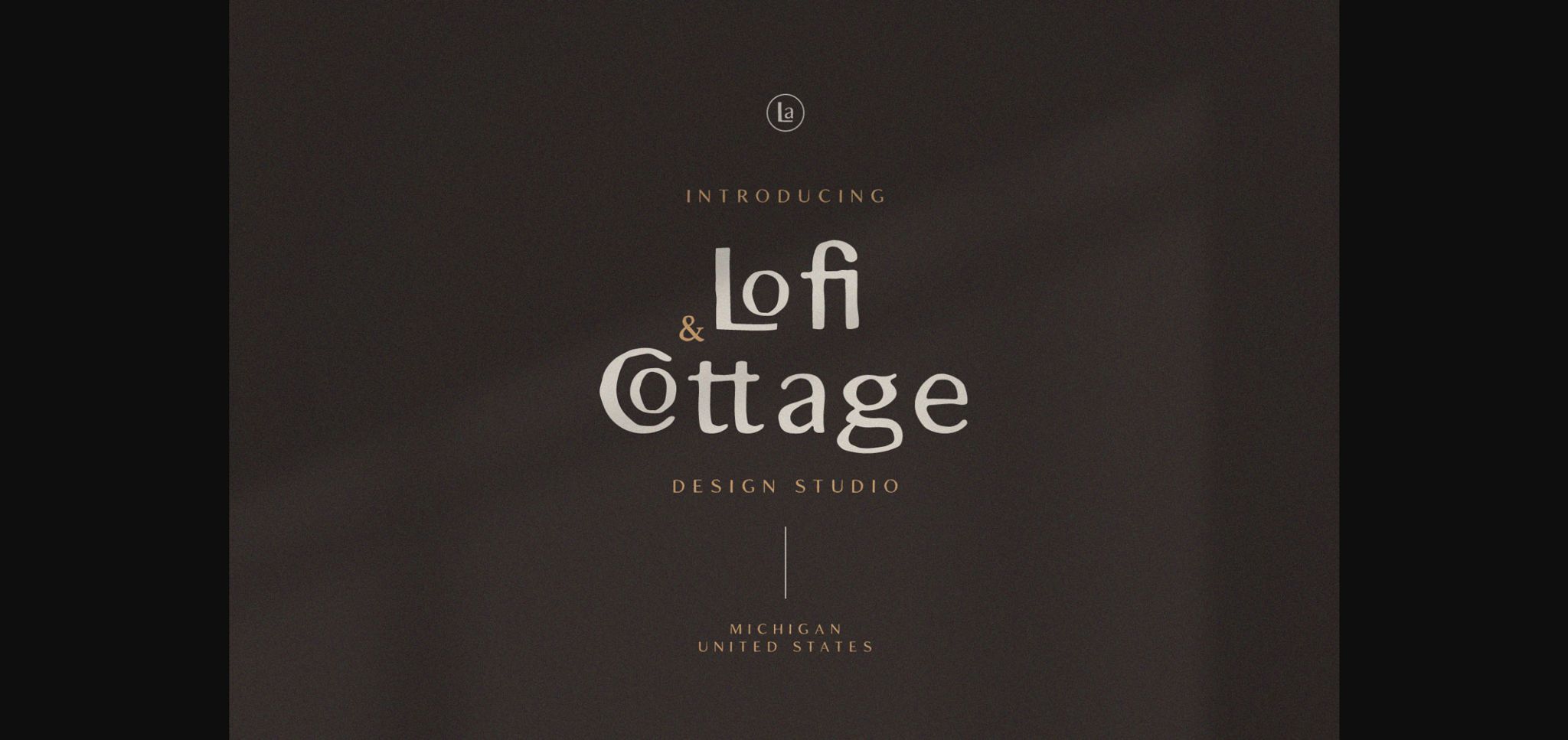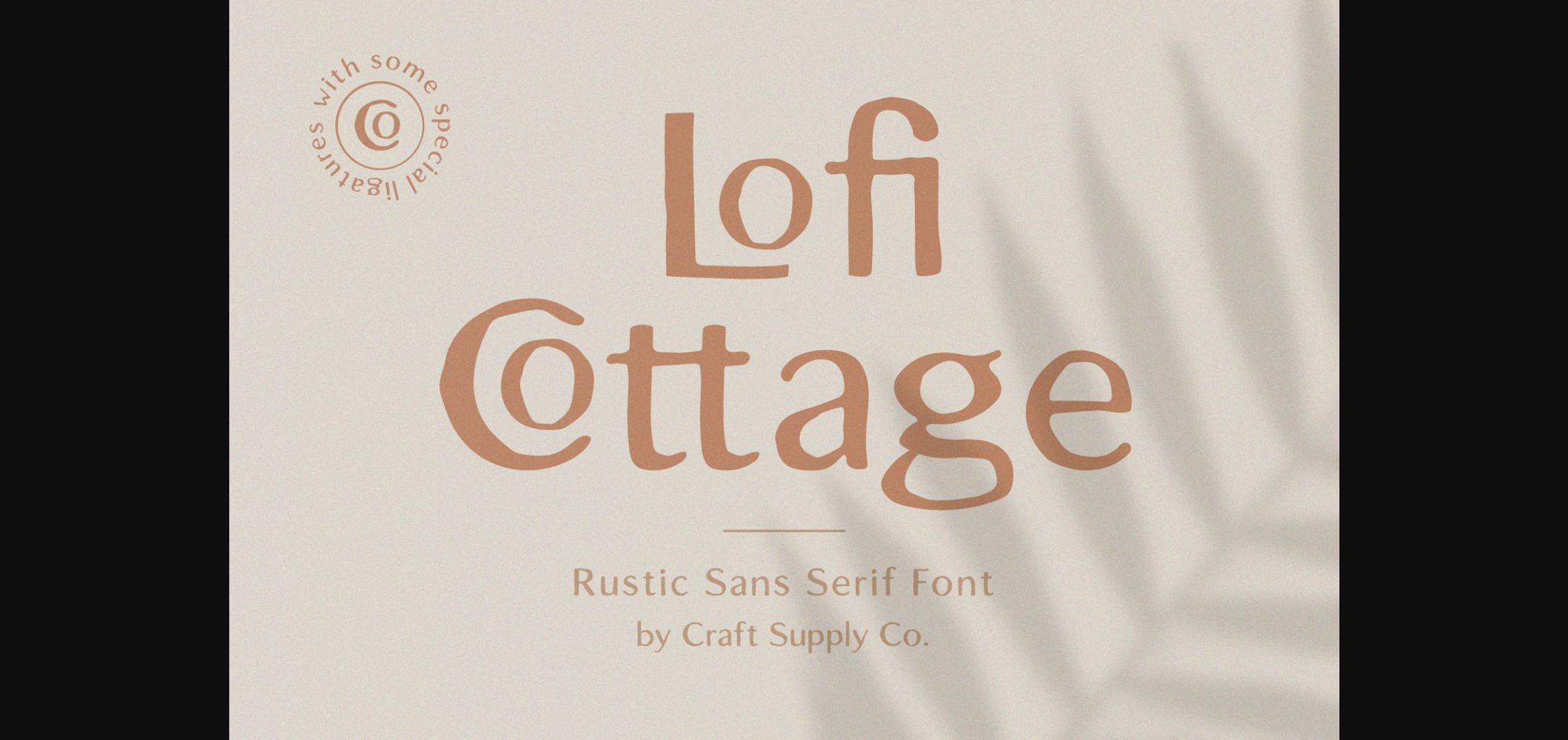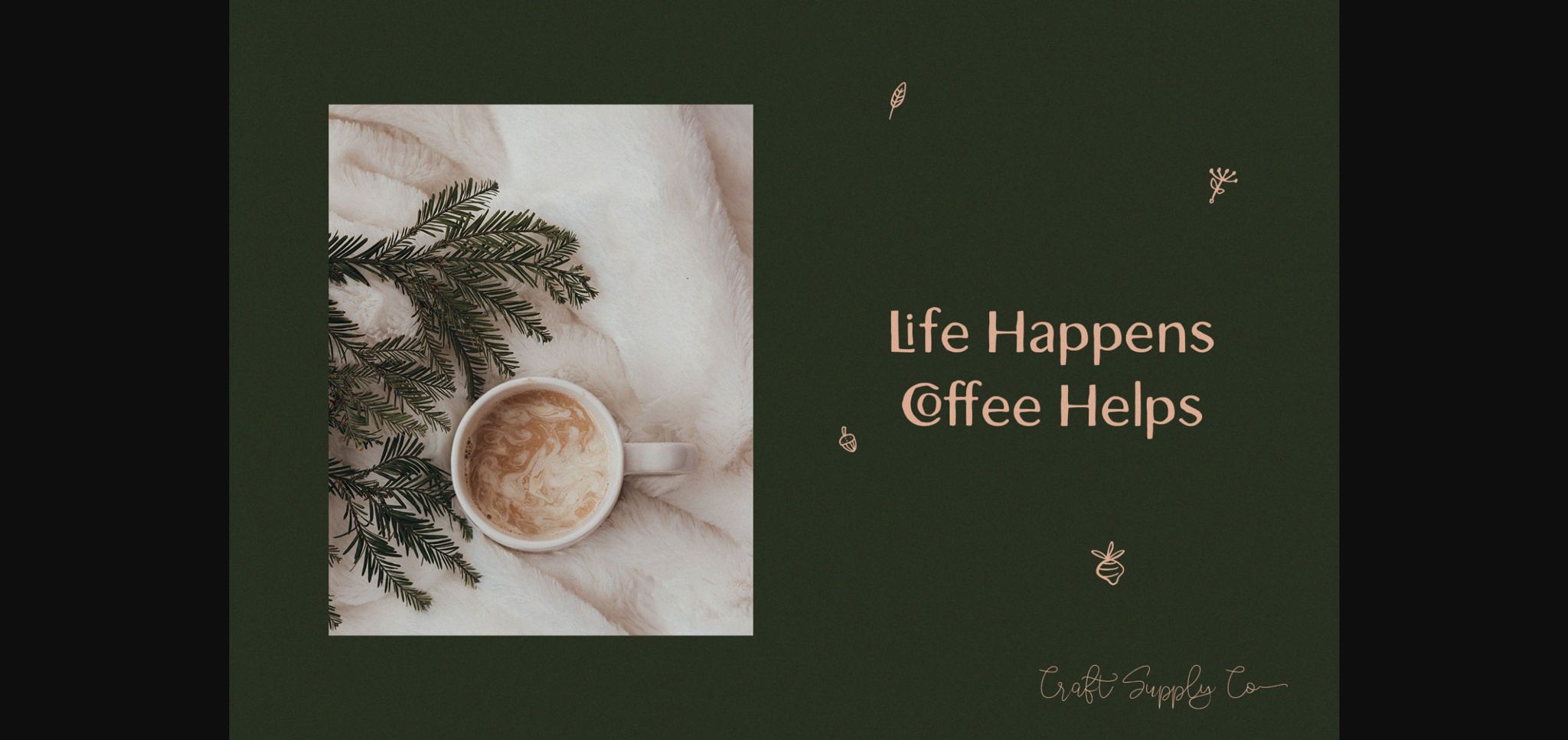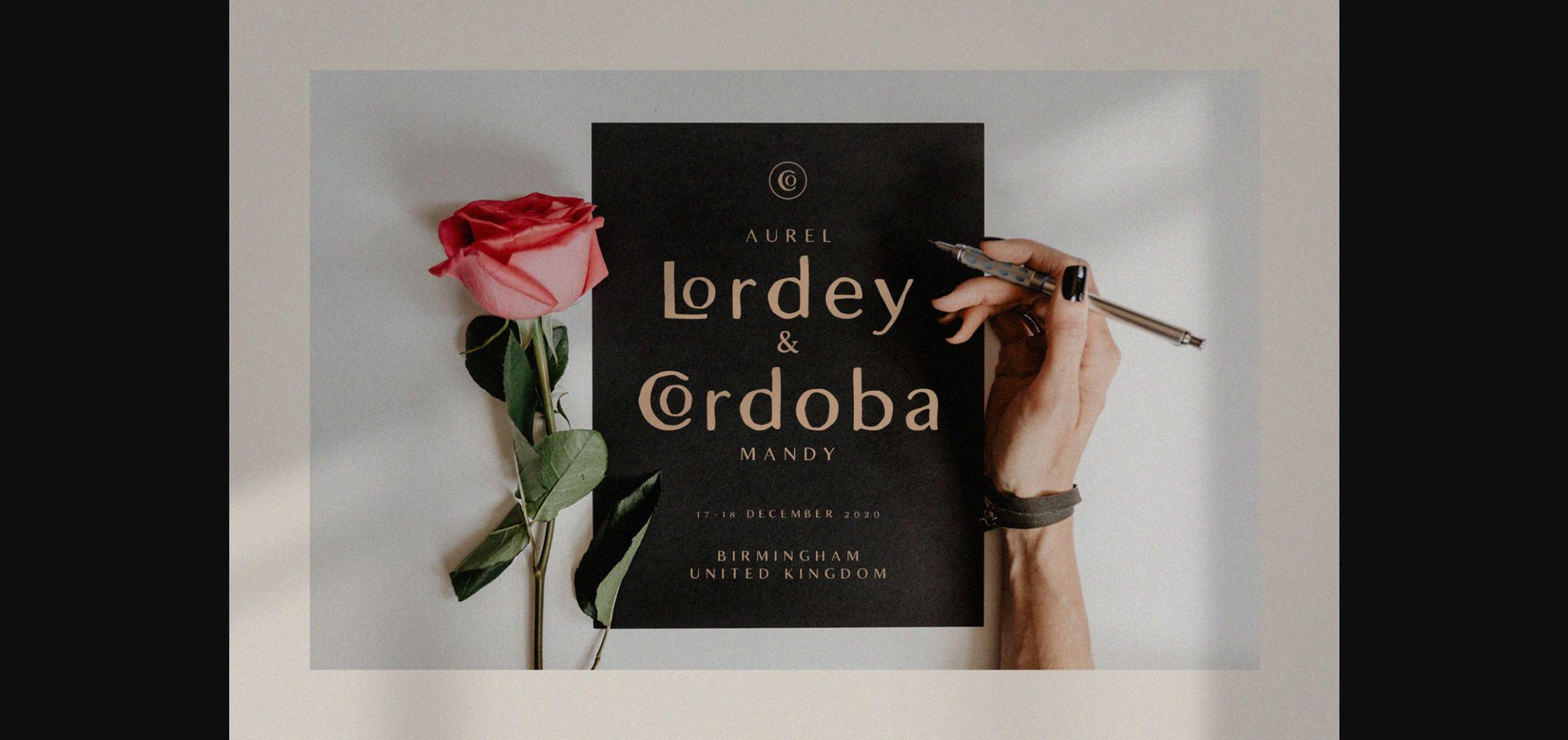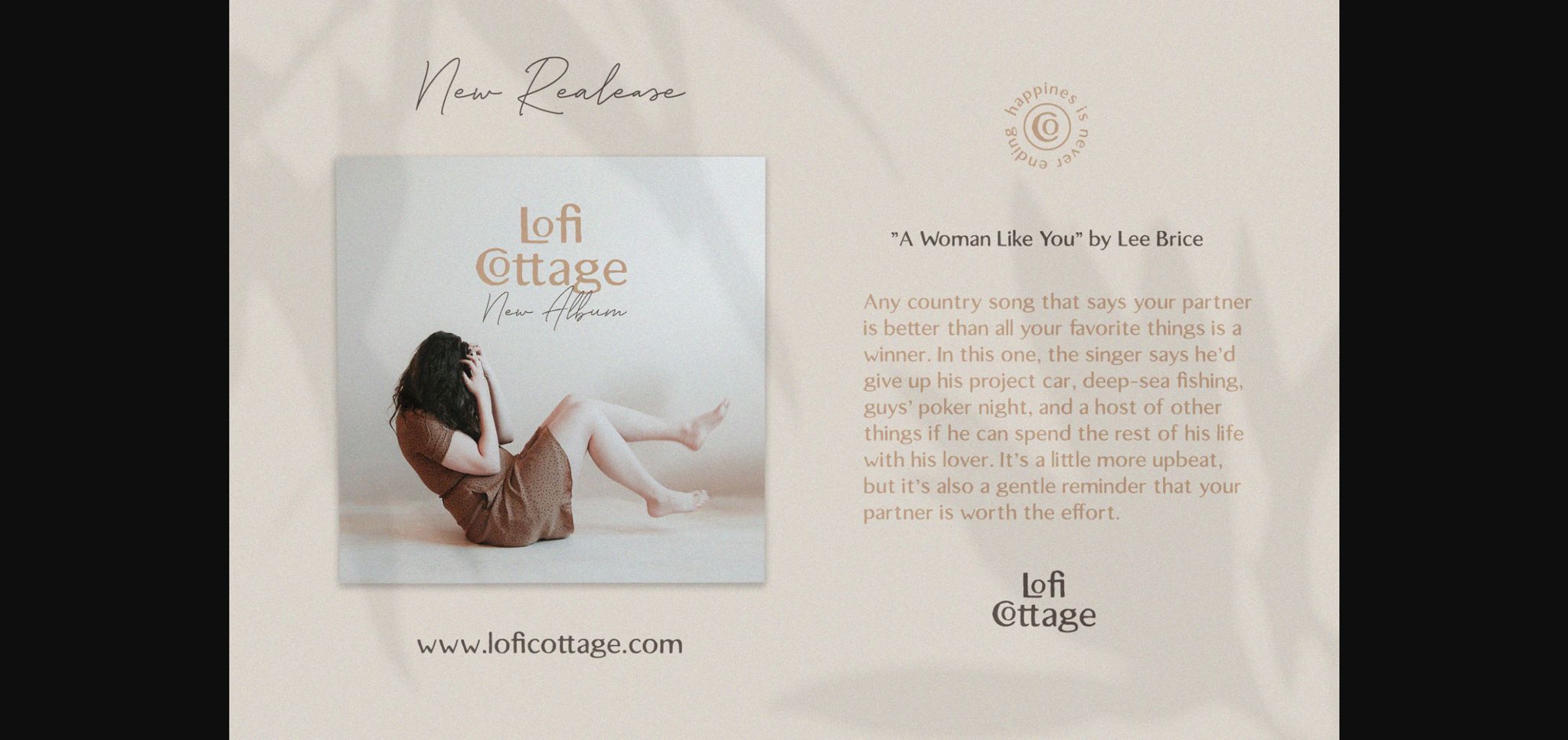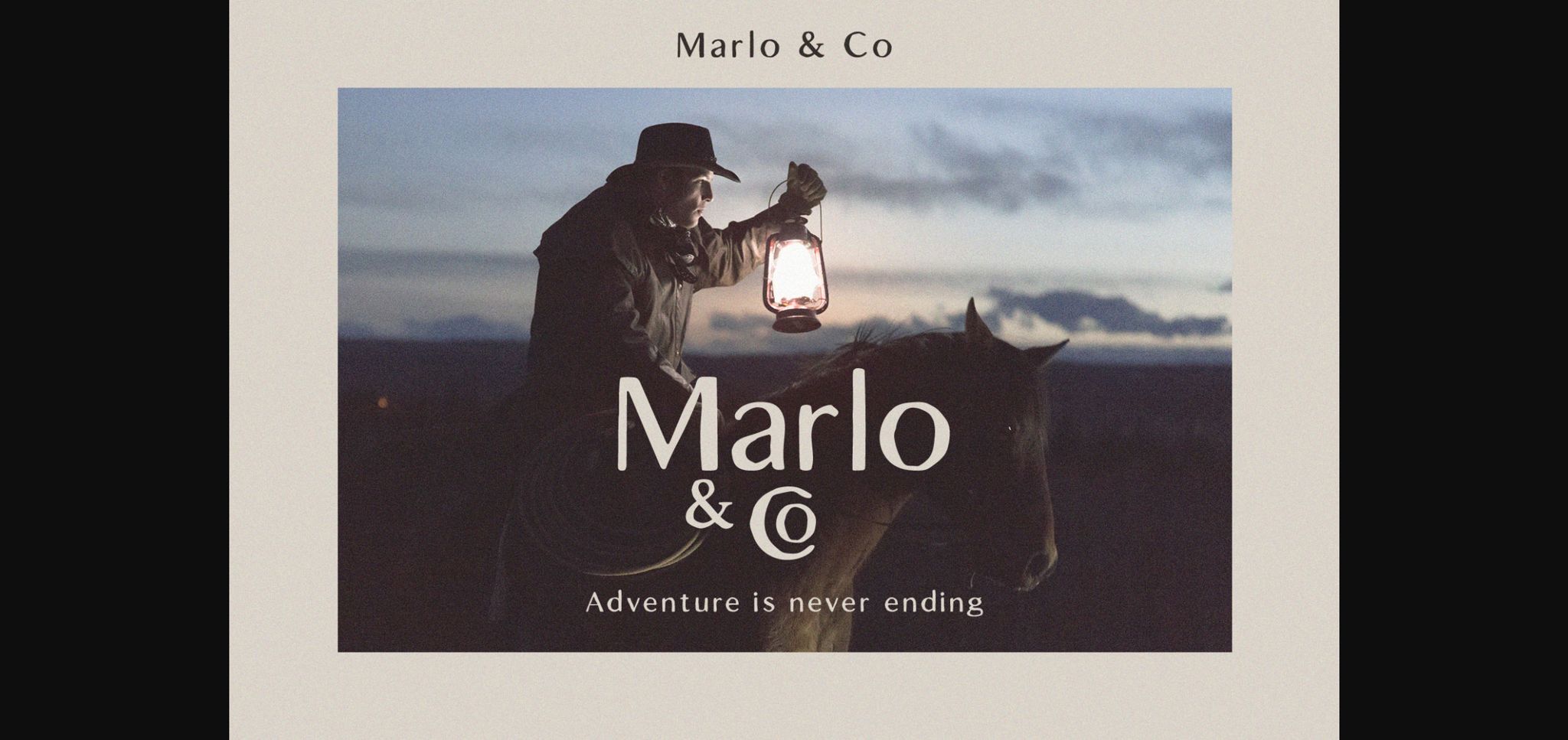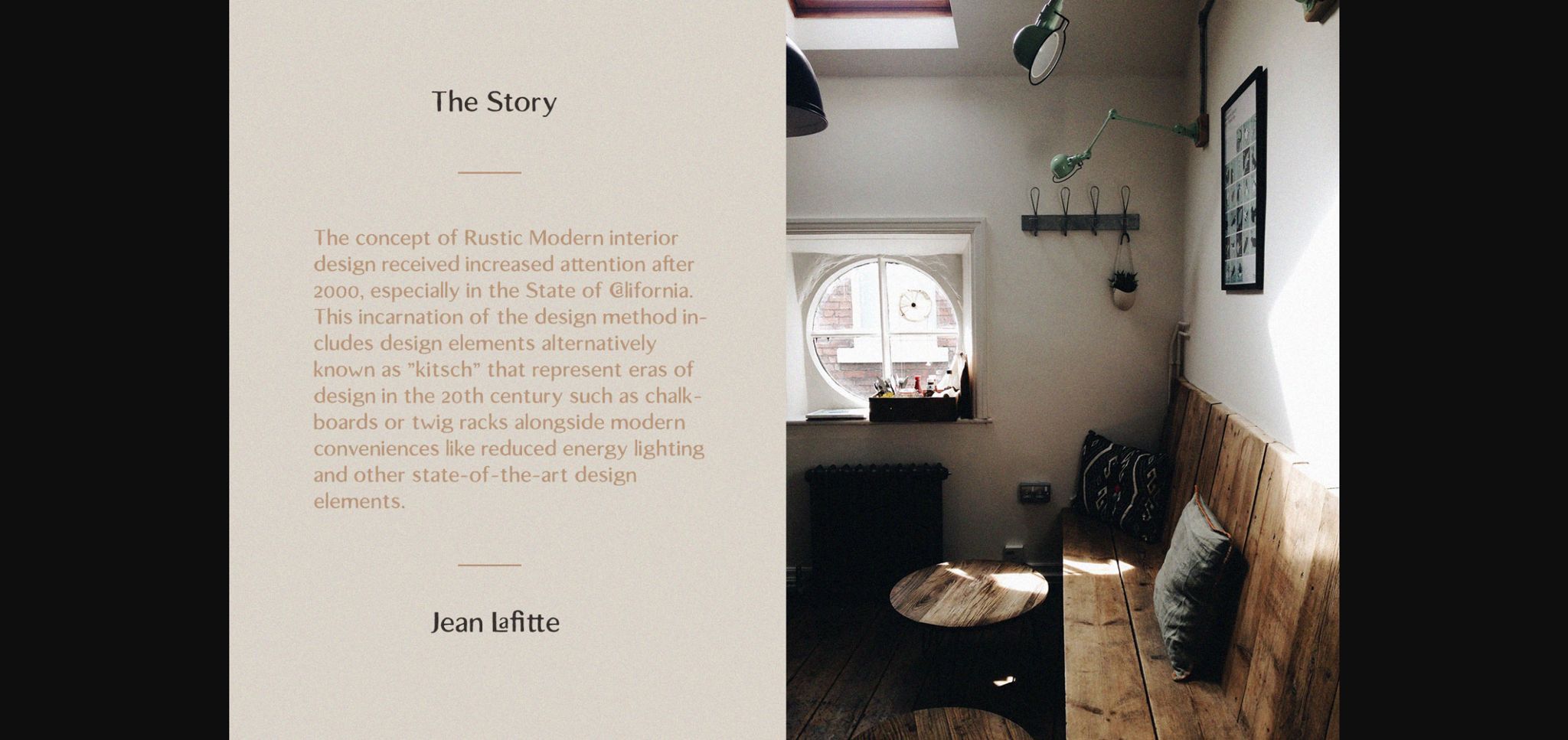
HomeSans Serif FontsLofi Cottage Font Sans Serif Fonts Lofi Cottage Font FacebookXPinterestWhatsApp 1 of 10 ... Lofi Cottage Font Poster 2... Lofi Cottage Font Poster 3... Lofi Cottage Font Poster 4... Lofi Cottage Font Poster 5... Lofi Cottage Font Poster 6... Lofi Cottage Font Poster 7... Lofi Cottage Font Poster 8... Lofi Cottage Font Poster 9... Lofi Cottage Font Poster 10... About Lofi Cottage Font Lofi Cottage is an experimental and rustic sans serif font with a beautiful, nostalgic feel. It will add a down-to-earth vibe to any design project! DOWNLOAD NOW People also explored Fantasy Script 11 Font Beleza Pura Font Fierceness Font Dream Love Font Simple Background Font Slovenia Font Sunkist Font Heatwood Font Grigio Font 358 0 TagsLofi Cottage Font Previous articleNothan FontNext articleWaring Tons Font LEAVE A REPLY Cancel reply Comment: Please enter your comment! Name:* Please enter your name here Email:* You have entered an incorrect email address! Please enter your email address here Website: Save my name, email, and website in this browser for the next time I comment. Personal Use Free Burgie Personal Use Free Read more about this font Numberpile Personal Use Free Read more about this font Propaniac Personal Use Free Read more about this font Andolas Personal Use Free Read more about this font BLOG Exploring Font Trends Shaping Communication in the Digital Era Fonts, like all design elements, are subject to trends. They play a crucial role in communicating a brand's personality,... Modern Sans-Serif Fonts That Brands Love in 2025 Using Fonts in Digital Marketing: Tips to Strengthen Your Brand Identity Fonts That Capture the Spirit of New York City